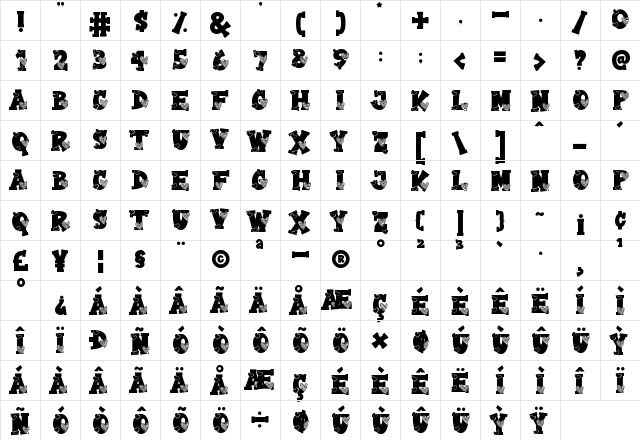
Complete Valentine College Regular glyph index. Displaying only characters natively supported by Valentine College Regular font.
Valentine College brings high-energy athletic personality to the page - its confident, muscular forms are built for impact.
Pro Tip: Use Valentine College in all-caps headlines where its athletic energy can fully express itself. Pair with a solid, simple sans for supporting text.